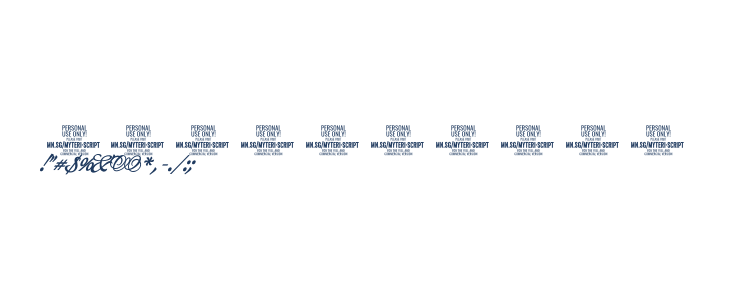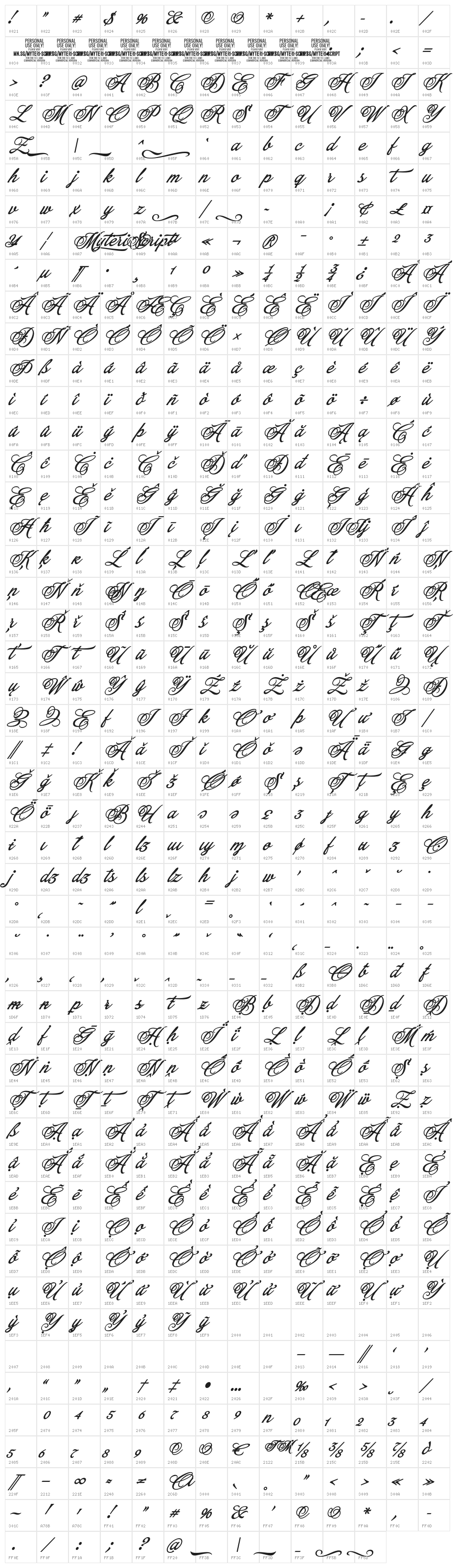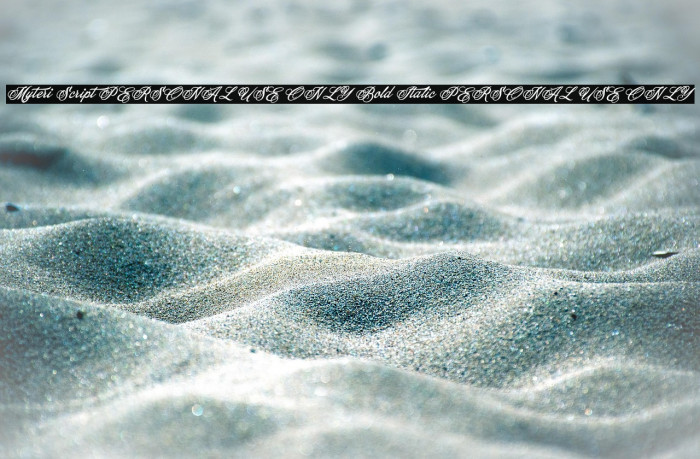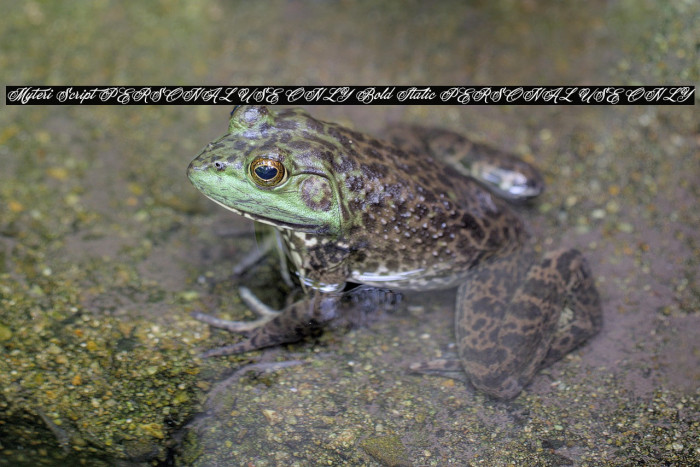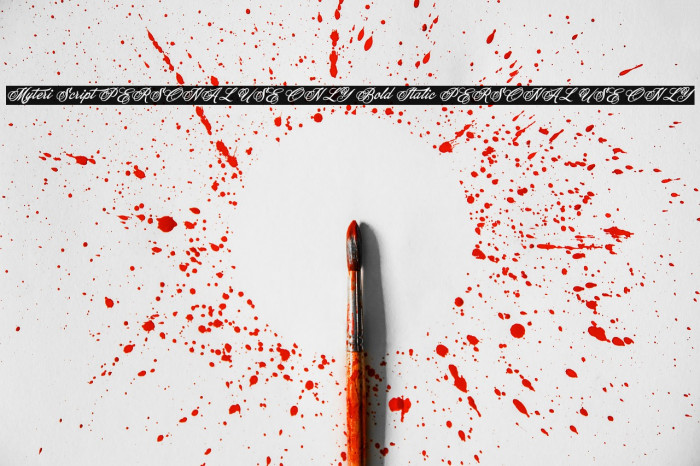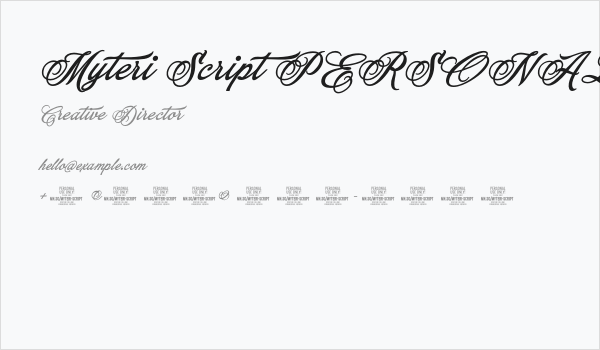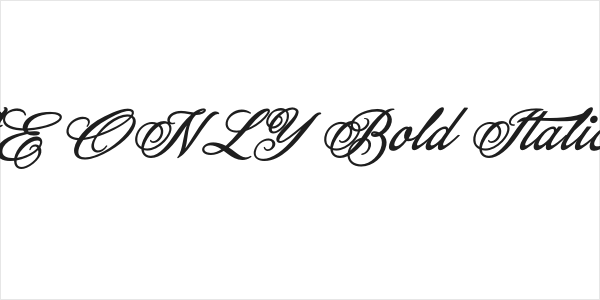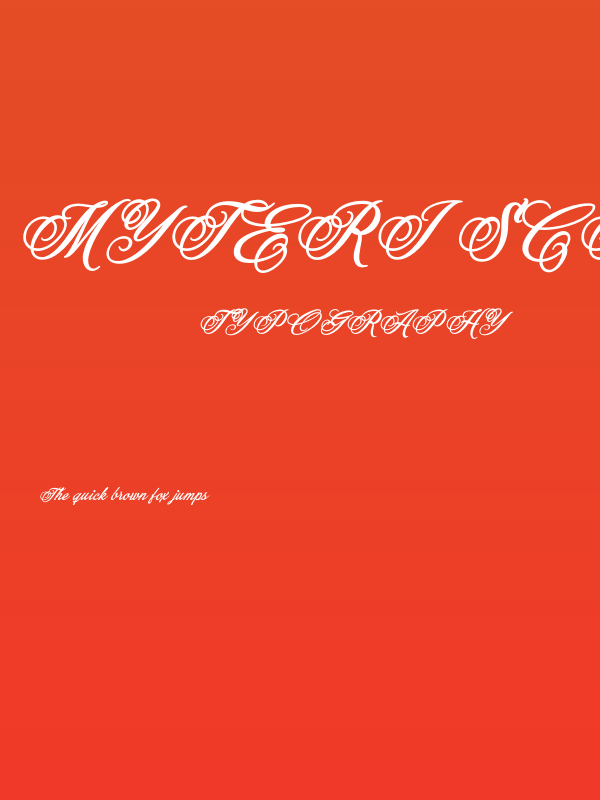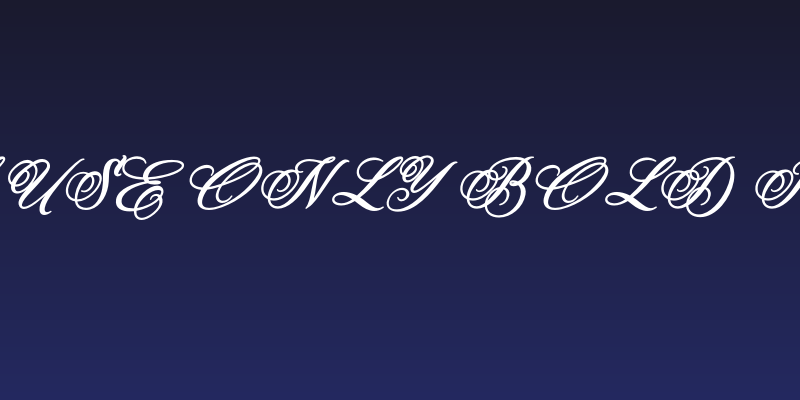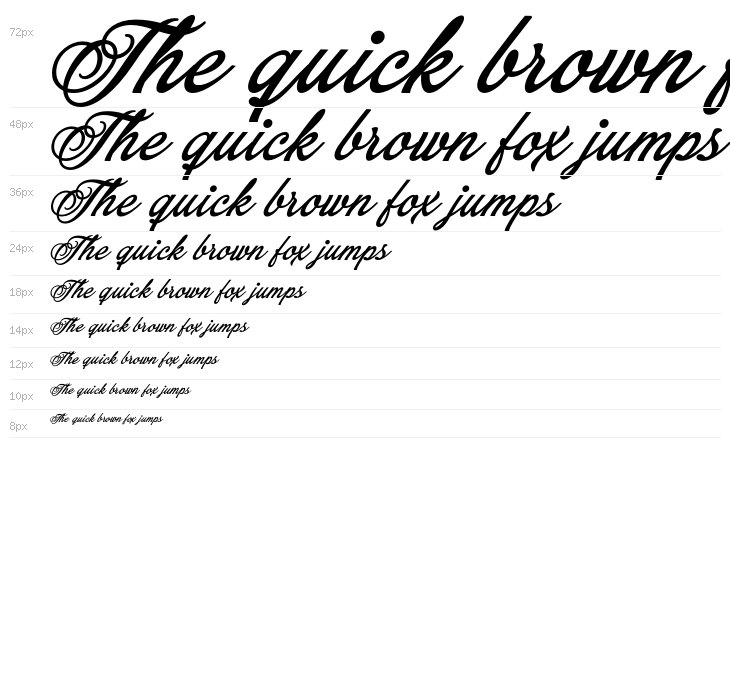
Myteri Script PERSONAL USE ONLY Bold Italic PERSONAL USE ONLY Font
Myteri Script PERSONAL USE ONLY Bold Italic PERSONAL USE ONLY Description
This font features an elegant and flowing script style, characterized by its bold and italicized appearance. The uppercase letters exhibit intricate loops and swirls, adding a touch of sophistication and flair. The lowercase letters maintain a consistent flow, enhancing readability while preserving the decorative nature of the script. The numerals and special characters are designed to complement the overall aesthetic, ensuring a cohesive look. This font is ideal for projects that require a touch of elegance and style, such as invitations, branding, and decorative headings.
| Proposed Projects | Ideal for wedding invitations, luxury branding, decorative headings, and elegant signage. |